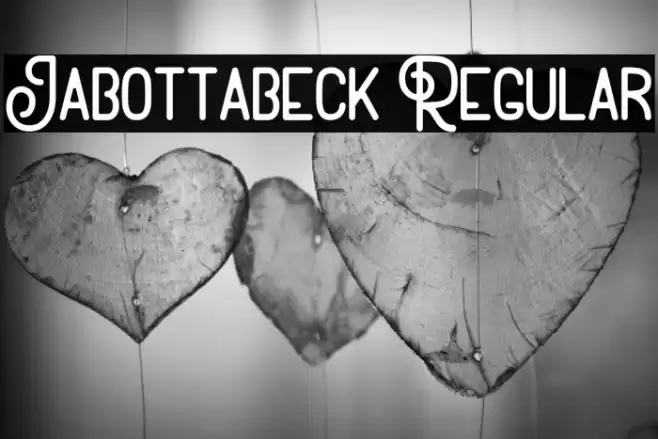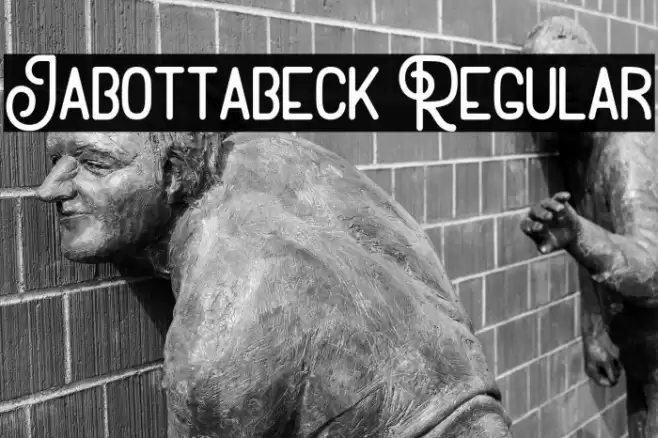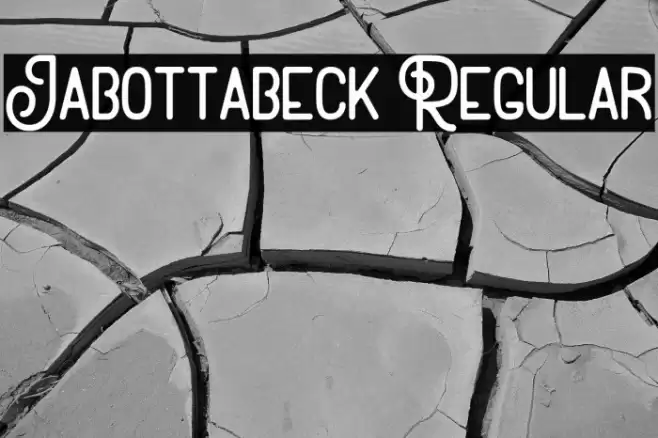
Jabottabeck Regular Font
Jabottabeck Regular Description
This font features a playful and artistic design, characterized by its unique combination of curves and straight lines. The uppercase letters exhibit a whimsical style with loops and swirls, adding a decorative flair. The lowercase letters maintain a more straightforward appearance, providing a nice contrast. The numerals are bold and rounded, ensuring readability while maintaining the font's overall playful aesthetic. Special characters are creatively designed, fitting seamlessly with the rest of the font. This font is ideal for projects that require a touch of creativity and fun, such as children's books, playful branding, or artistic posters.
A playful and artistic font with whimsical uppercase and straightforward lowercase letters from Regular fonts.
- Proposed Projects: Children's books, playful branding, artistic posters, creative invitations.
- Overall Style: Playful, Artistic